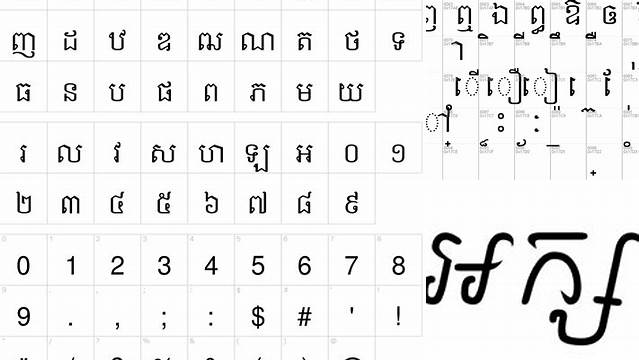
Khmer OS Font: Free Download Guide & Usage Tips
Looking to download font Khmer OS for free? You've come to the right place! This comprehensive guide will walk you through everything you need to know about Khmer OS fonts, where to find them, how to install them, and even some tips for using them effectively. Whether you're a seasoned designer or just starting out, having the right fonts is crucial for creating professional and authentic Khmer content. So, let's dive in, guys!
1. Introduction to Khmer OS Fonts
Khmer OS fonts are essential for displaying the Khmer script correctly on computers and other digital devices. The Khmer script is used to write the Khmer language, which is the official language of Cambodia. Without these fonts, Khmer text may appear as boxes or other incorrect characters. Understanding Khmer OS fonts is the first step in ensuring your digital content accurately represents the language. These fonts are specifically designed to support the complex characters and ligatures of the Khmer alphabet, making them indispensable for anyone working with Khmer text. They include various styles, weights, and designs, catering to different aesthetic preferences and practical needs. Using the appropriate font can greatly enhance the readability and visual appeal of your documents, websites, and other digital materials. Therefore, getting a good grasp of what Khmer OS fonts are and why they matter is crucial for anyone dealing with the Khmer language in a digital context.
2. What is Khmer Script and its Importance?
The Khmer script is an abugida script used to write the Khmer language, spoken primarily in Cambodia. It's a beautiful and intricate script with its own unique set of characters and rules. The importance of the Khmer script extends beyond mere communication; it's deeply intertwined with Cambodian culture, history, and identity. Preserving and promoting the use of the Khmer script is vital for maintaining the linguistic heritage of Cambodia. The script is used in various contexts, from religious texts and historical documents to modern literature and everyday communication. Its elegant forms and complex structure reflect the rich cultural tapestry of Cambodia. In the digital age, ensuring the accurate rendering of Khmer script is crucial for allowing Cambodians to fully participate in the global online community. This involves not only having the right fonts but also ensuring that software and platforms support the script correctly. The continued use and development of Khmer script fonts are essential for the preservation and promotion of the Khmer language and culture.
3. Why You Need Khmer OS Fonts
If you're working with the Khmer language on your computer, you absolutely need Khmer OS fonts. Without them, the text won't display correctly, and you'll just see a bunch of gibberish. Think of it like trying to read English without the alphabet – it's just not going to work! Khmer OS fonts are designed to render the complex characters and ligatures of the Khmer script accurately, ensuring that your documents, websites, and other digital content are legible. These fonts are also crucial for creating a professional and authentic look for your Khmer text. Using the right font can make a significant difference in how your content is perceived, adding credibility and visual appeal. Whether you're writing a formal letter, designing a website, or creating marketing materials, having Khmer OS fonts is essential for effective communication. Moreover, using these fonts helps to promote and preserve the Khmer language in the digital world, allowing it to thrive in an increasingly globalized context.
7. How to Identify High-Quality Khmer Fonts
So, how do you identify high-quality Khmer fonts? There are a few key things to look for. First, check the character design. Are the glyphs consistent and well-formed? Does the font accurately represent the Khmer script? Pay attention to the kerning (the spacing between letters) and the overall readability of the font. A high-quality font should be easy to read in various sizes and contexts. Also, consider the font's versatility. Does it come in different weights and styles? Does it include all the necessary characters and symbols? Another good way to assess quality is to read reviews and see what other users have to say about the font. Professional font foundries often provide detailed information about their fonts, including technical specifications and usage guidelines. Examining the font's license agreement is also important, as it can provide insights into the font's intended use and limitations. By considering these factors, you can ensure that you are selecting Khmer fonts that meet your standards and enhance your projects.